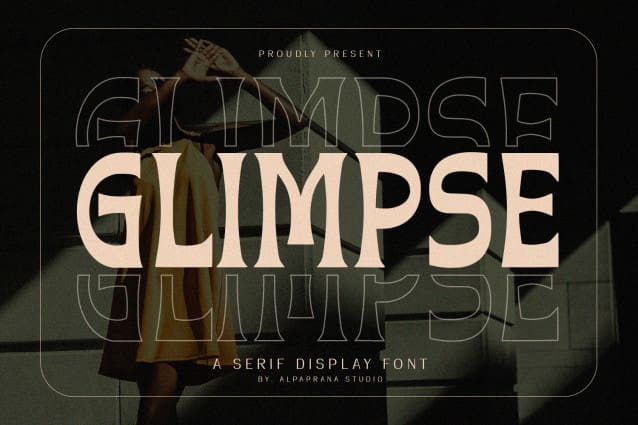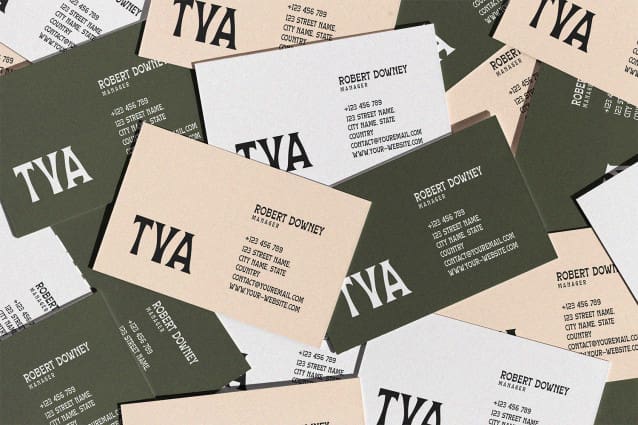
Glimpse Font
Glimpse Font is a serif font with elegant and modern feels. It will be perfectly used for Branding, Logo Design, Lettering, Logotype, Clothing, Poster, magazine, packaging, posters, shopping bags, t-shirts, book covers, photography, special events and other design project.